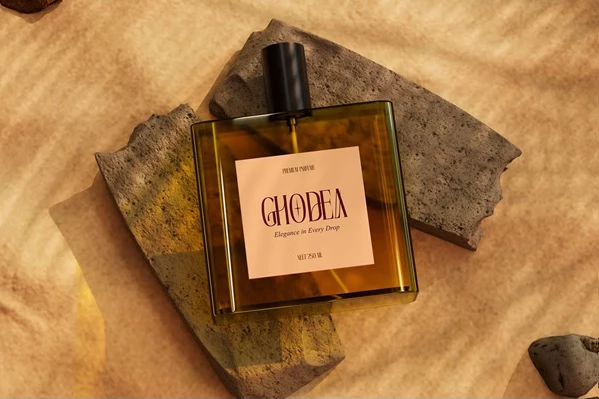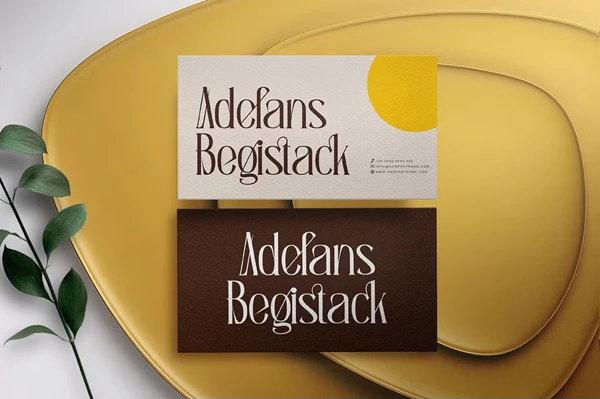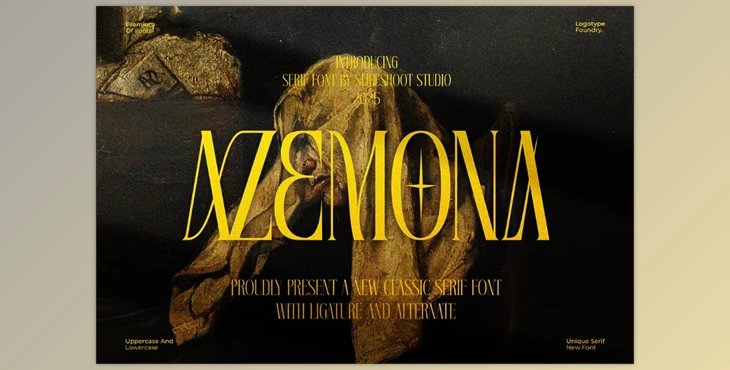
Azemona || Classy Serif Font:
Azemona || Classy Serif Font is a modern and elegant font that has a fun and trendy vibe to it. It features a charming wood design which makes this font suitable for a variety of creative works. Azemona can give a unique touch to your invitation cards, business logos, movie titles, business cards and even on book covers.
Some great features of Azemona || Classy Serif Font:
- Contains both capital and small letters for a variety of typography styles.
- Comes with full numbering and punctuation.